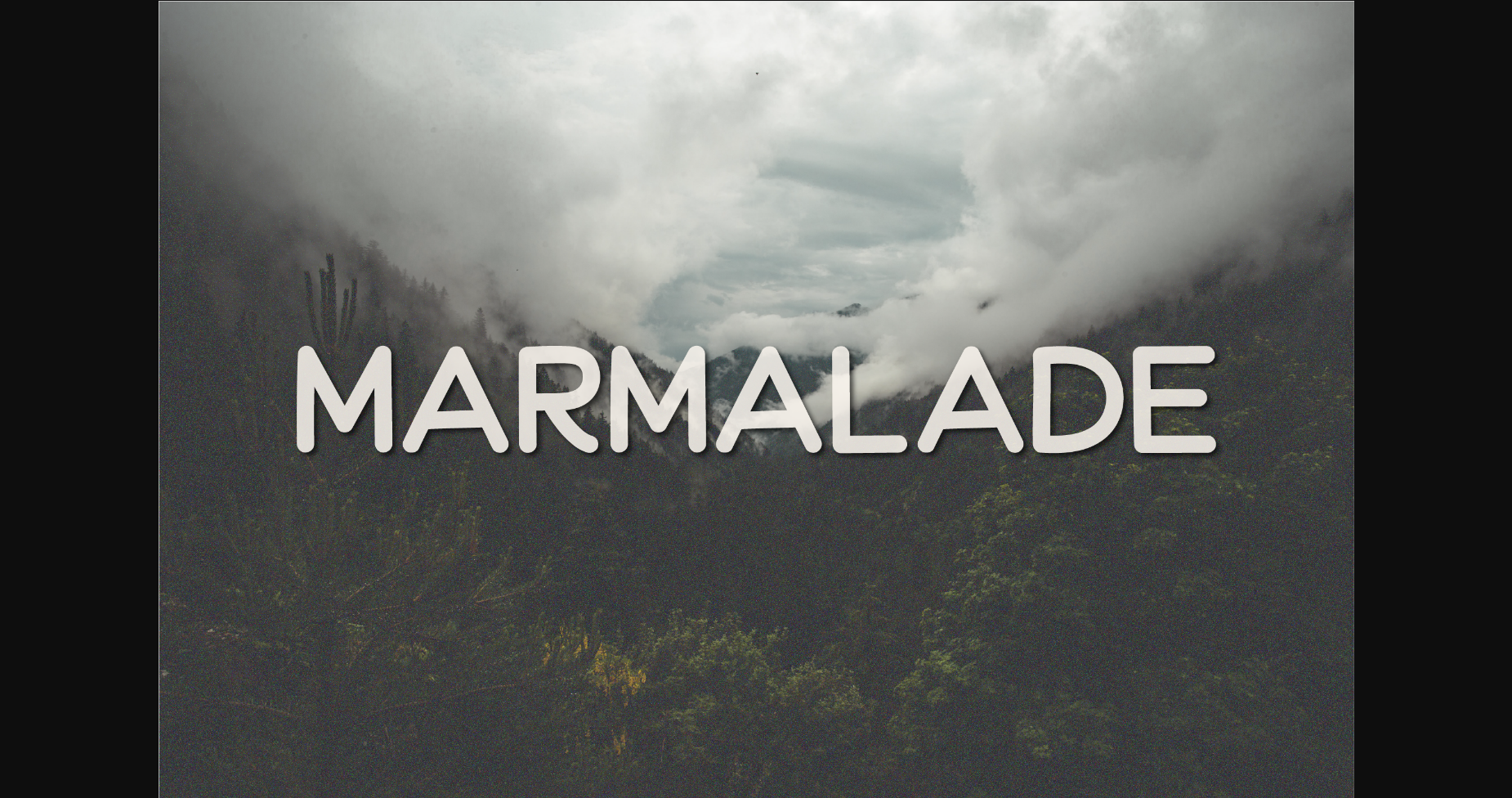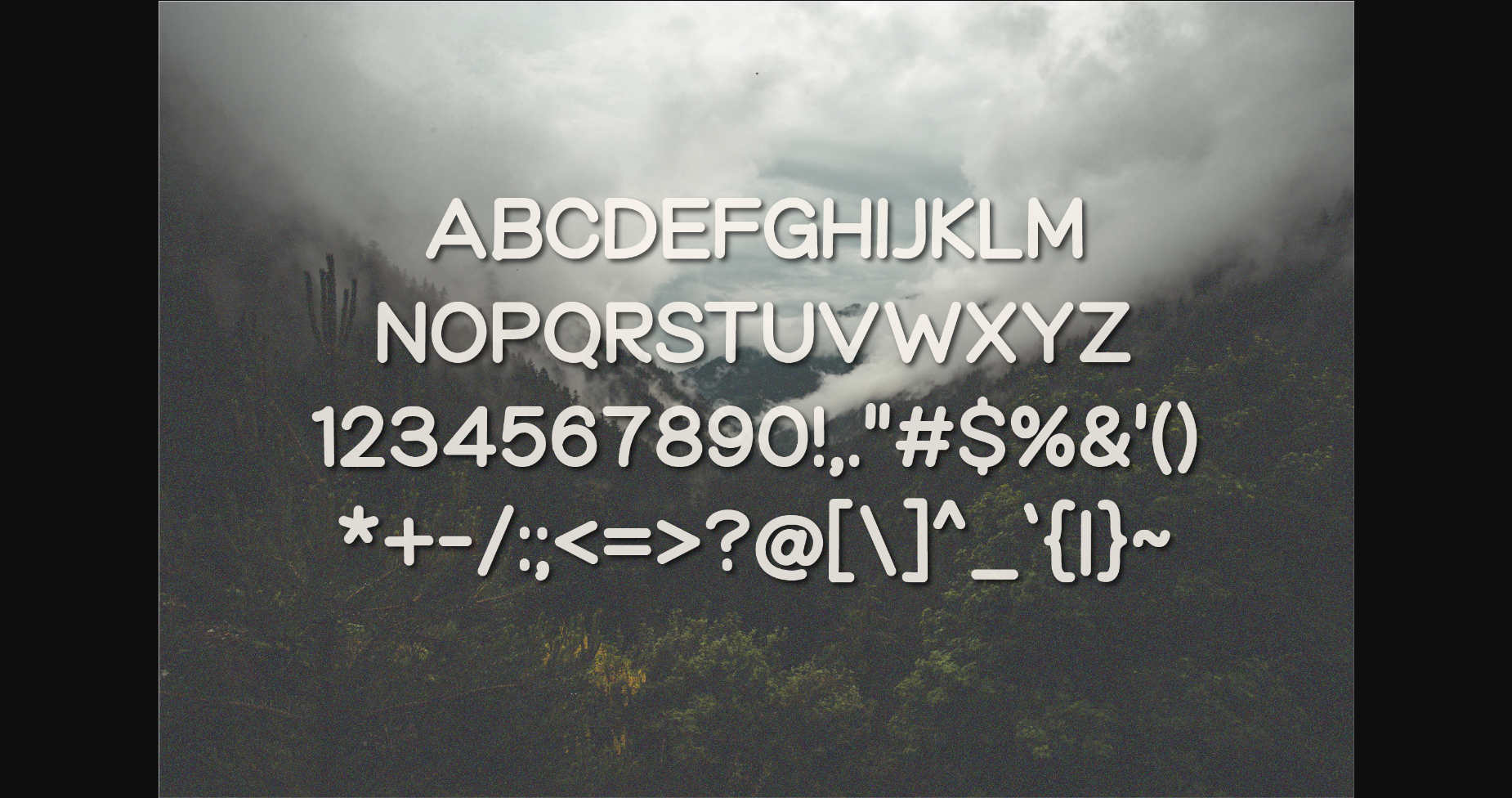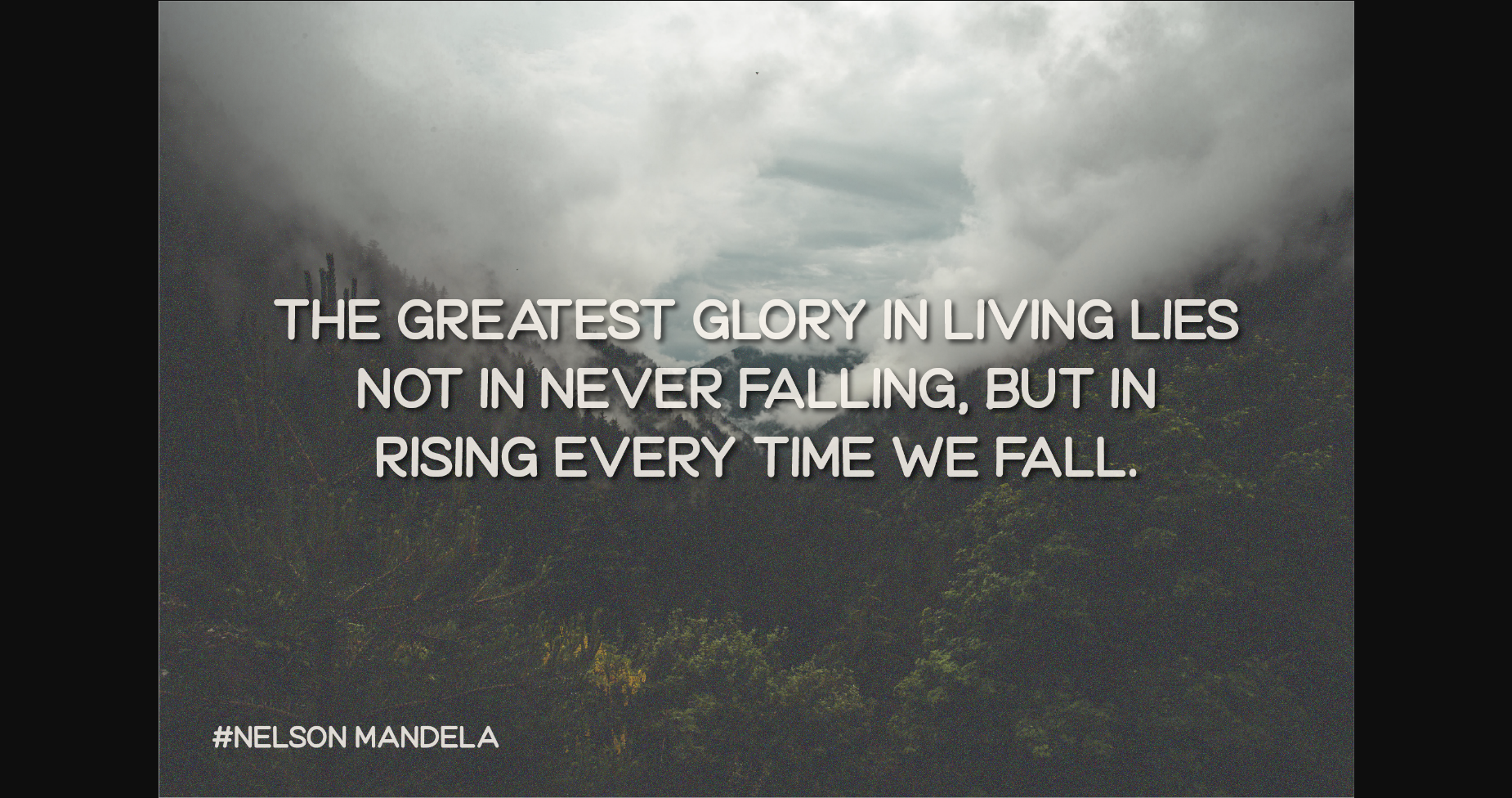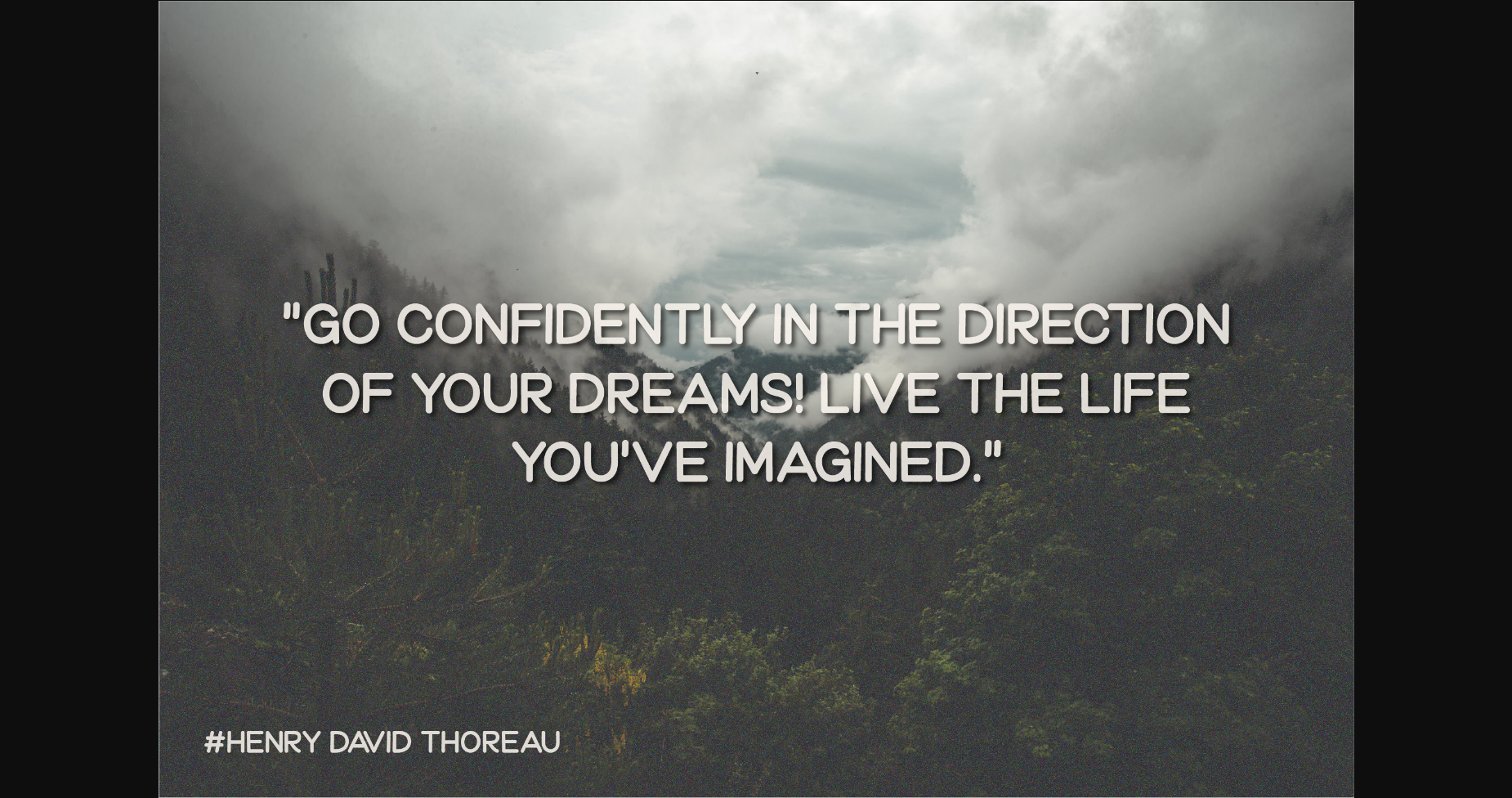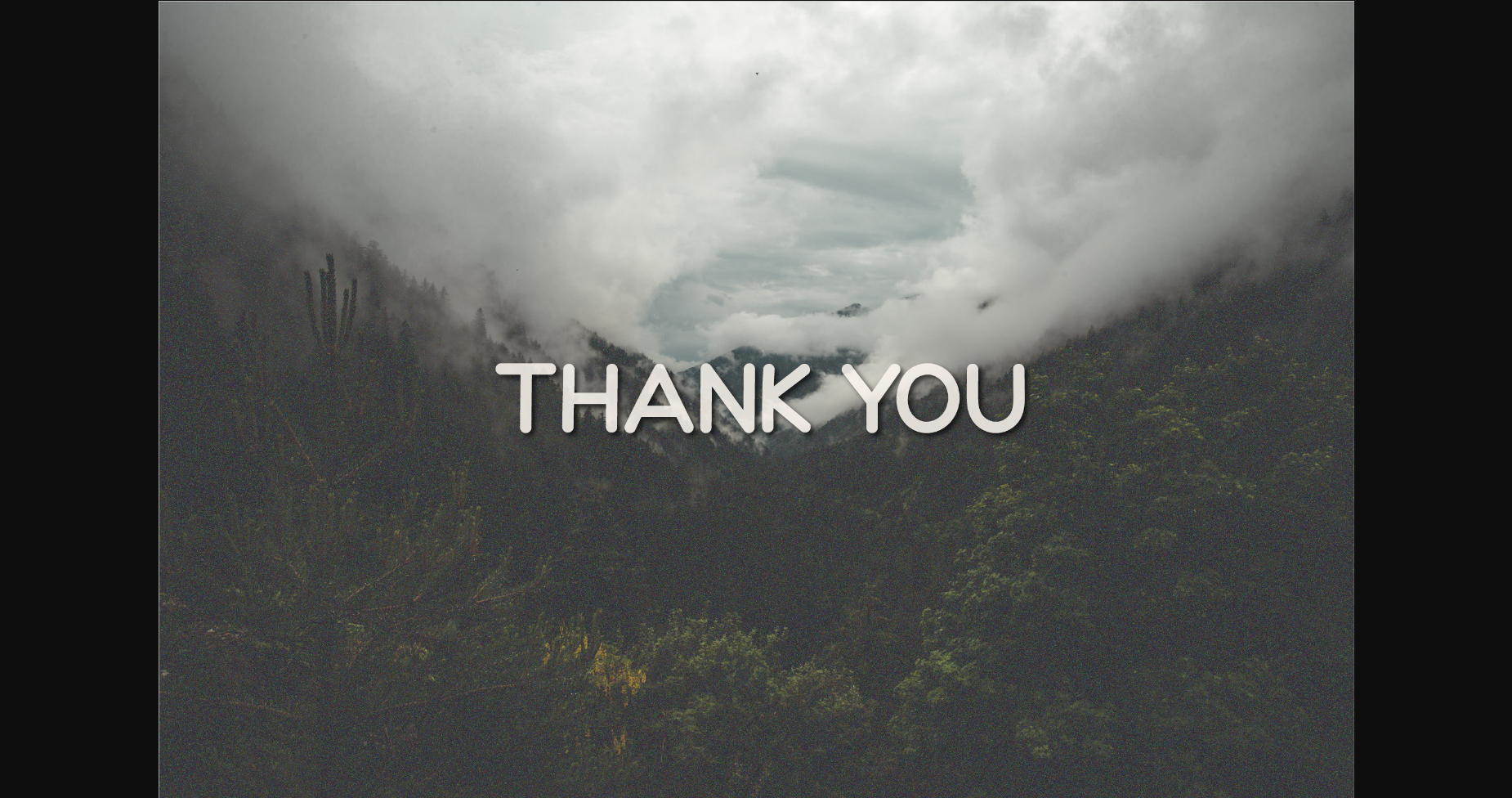
Marmalade Font
About Marmalade Font
Marmalade is a quirky all-caps font made up of capital letters. This font is perfect for social media or crafty projects. Simple and smooth perfect for crafting, t-shirts, decals, cards, invitations and so much more.